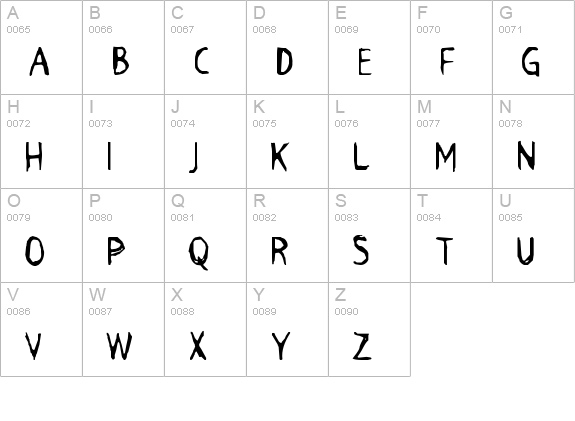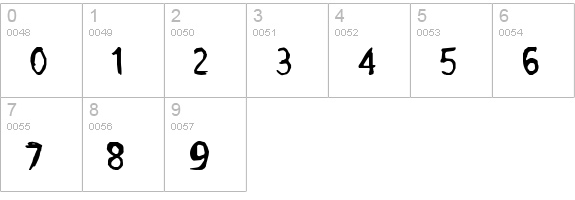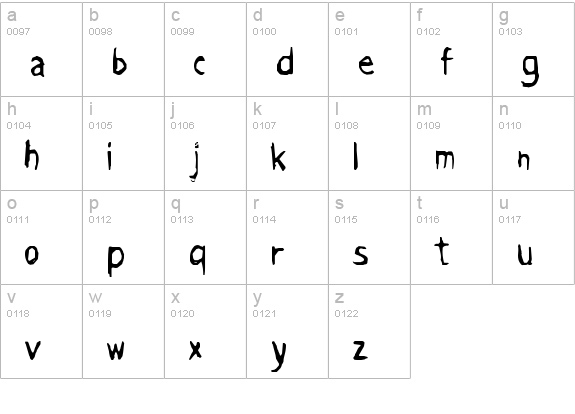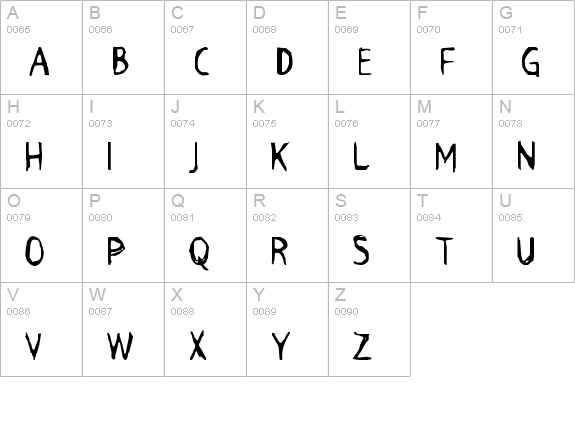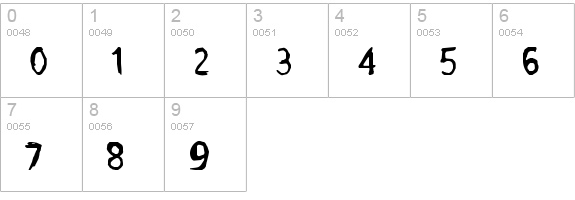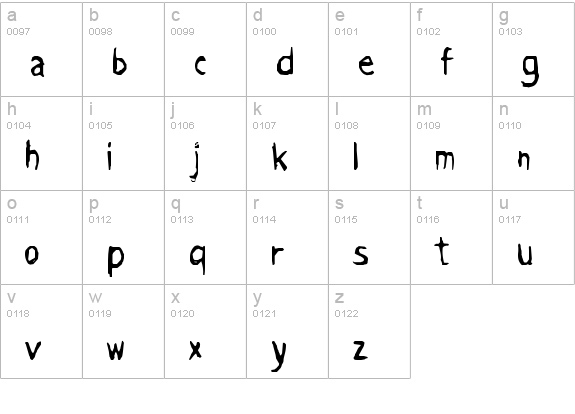
Grimace Font Details
Grimace font is a bold and eye-catching typeface that exudes a sense of mystery and intrigue. With its unique and distinctive design, Grimace font is perfect for adding a touch of edginess to your projects. Its thick, heavy strokes make a powerful statement, while its sleek and modern look ensures that your text stands out from the crowd. The best part? Grimace font is available for free download at FontsMarket.com. This means that you can easily access this striking font and use it in your designs without any cost. Whether you're working on a poster, logo, website, or any other creative project, Grimace font is sure to make a lasting impression. Don't miss out on this opportunity to enhance your designs with the captivating Grimace font – get it today for free at FontsMarket.com.